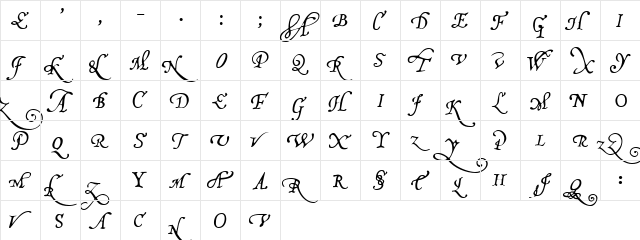
Decorative Italic Initials Regular
Design Context for Decorative Italic Initials Typeface
Decorative Italic Initials is built around its visual character rather than neutral utility — its distinctive forms are designed to make an impression at display sizes. The slanted form adds forward momentum and visual energy.
Font Pairing: Pair with a clean neutral sans-serif for body copy to let Decorative Italic Initials's character lead without overwhelming the composition.
Pro Tip: Treat Decorative Italic Initials as the centrepiece of your typographic hierarchy. One strong heading set in a decorative face can carry an entire layout.